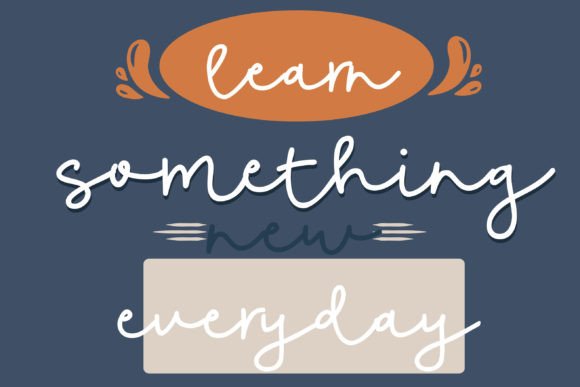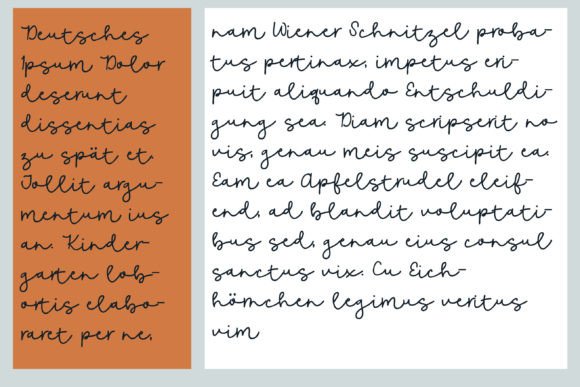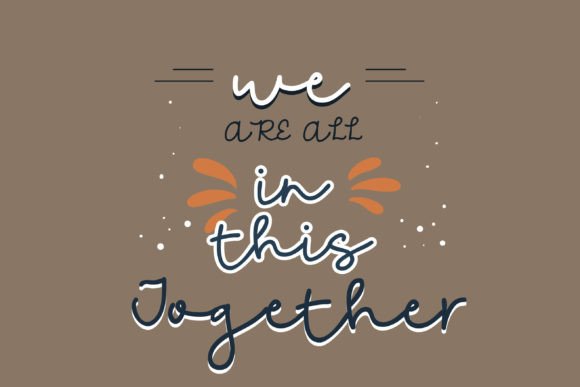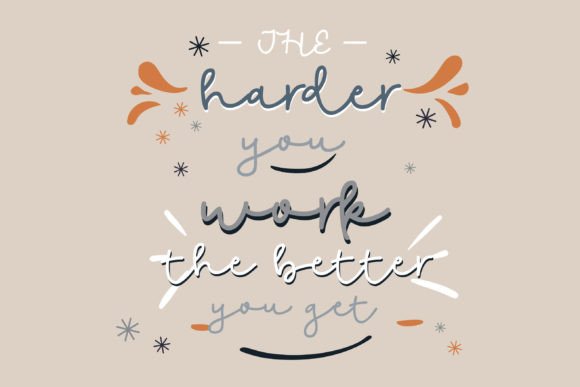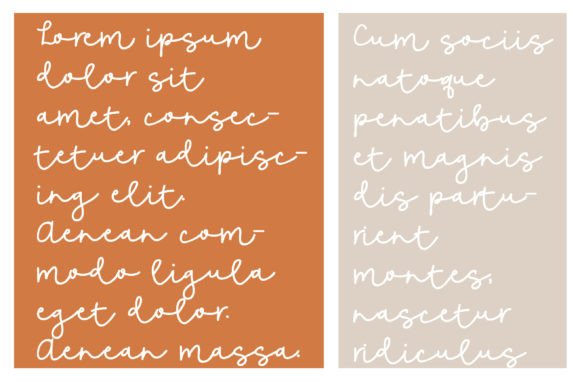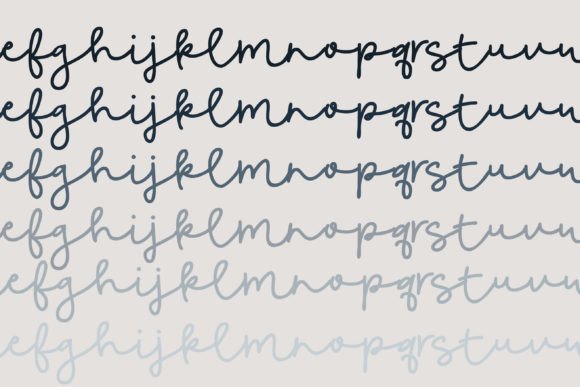
A Personal Touch in Every Line: The Allure of Handwritten Fonts
Have you ever sat down with a loved one, watching as they effortlessly scribble out a heartfelt message on a birthday card or invitation? The way the pen glides across the page, creating a unique and personal touch that’s impossible to replicate with digital tools? For designers looking to add a touch of warmth and personality to their projects, handwritten fonts like Aunt Ruthie Font are a godsend.
Aunt Ruthie Font is a beautiful, hand-crafted font that captures the essence of traditional cursive writing. With three weights to choose from, it’s perfect for adding a casual, yet elegant touch to invitations, greeting cards, and other special occasions. As a designer, you’ll appreciate the flexibility and versatility of Aunt Ruthie Font, which can be used to evoke a sense of nostalgia, whimsy, or simply to add a personal touch to your work.
Aunt Ruthie Font Key Features
- Unique Characteristics: This font features a distinctive, cursive script with elegant and flowing lines, making it suitable for various creative applications.
Aunt Ruthie Font Review
I recently had the chance to work with the “Aunt Ruthie Font” and I must say it was an interesting experience. ✨ One of the things that stood out to me was the font’s unique character and personality. It’s a bit quirky and offbeat, which I think could be a great fit for certain design projects.
Another thing that works well is the font’s x-height, which is nice and tall. This makes the font look more balanced and easier to read, especially at smaller sizes.
While “Aunt Ruthie Font” has some great qualities, it’s not without its limitations. ⚠️ One of the main issues I had was with the font’s spacing. In some cases, the letters felt a bit too tight and cramped, which made the text look a bit cluttered.
Overall, I think “Aunt Ruthie Font” is a solid choice for designers who are looking for a unique and quirky font. While it may not be the best fit for every project, it’s definitely worth considering for designs that need a bit of personality and flair.
Key Points
- Unique character and personality
- Nice and tall x-height
- Can be a bit too tight and cramped in some cases
- May not be the best fit for every project
Tips for Getting the Most Out of Aunt Ruthie Font
1. Use Aunt Ruthie Font for vintage-inspired designs.
2. Pair it with distressed textures for a unique look.
3. Experiment with different font sizes and colors to create visual interest.
Aunt Ruthie Font is perfect for:
2. Vintage-themed posters and prints.
3. Craft projects and DIY decor.